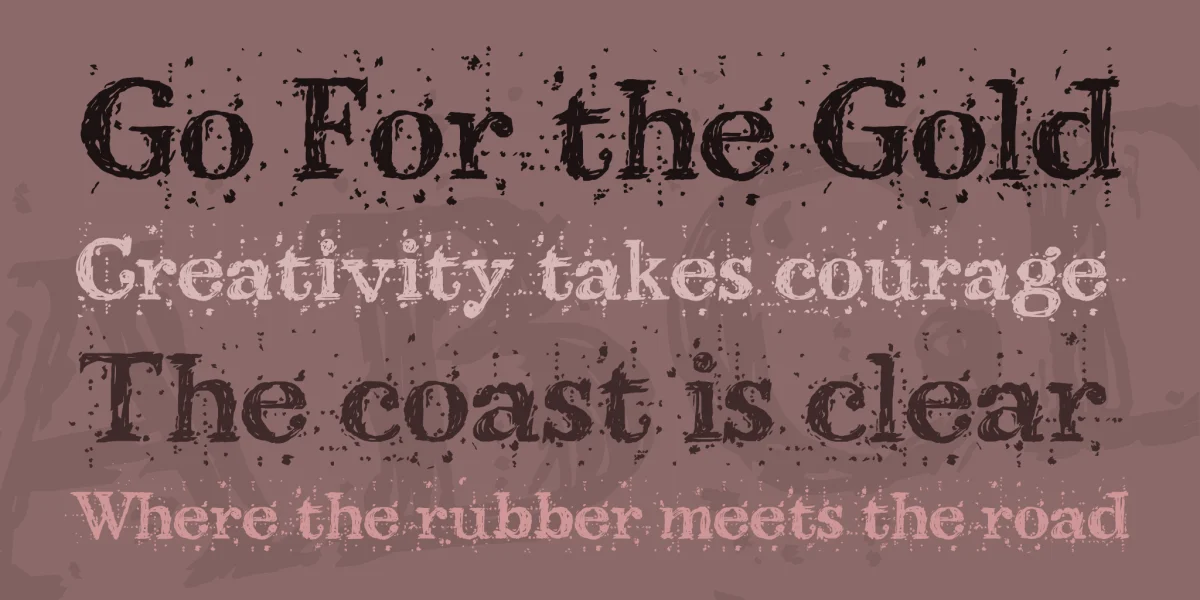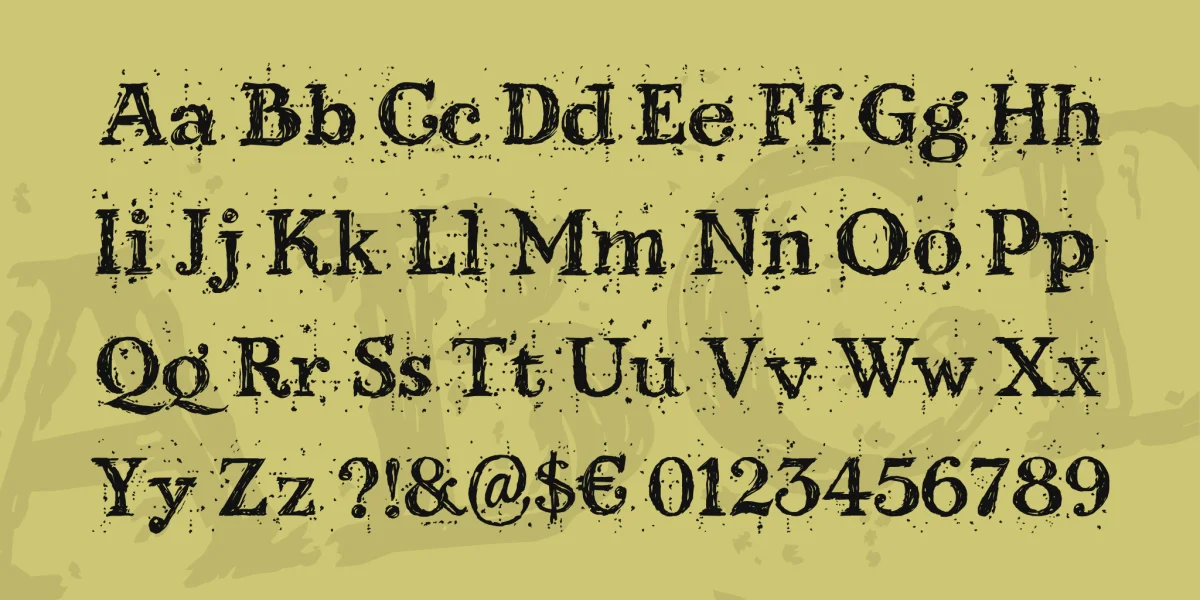
The Scrap booking People have asked for grungy fonts - and this is one of my efforts to comply. I scribbled the letters in Paint shop Pro and imported the results into my font program directly. This is the first font i have created directly on the computer without any paper sketches - I think it took considerably more work!